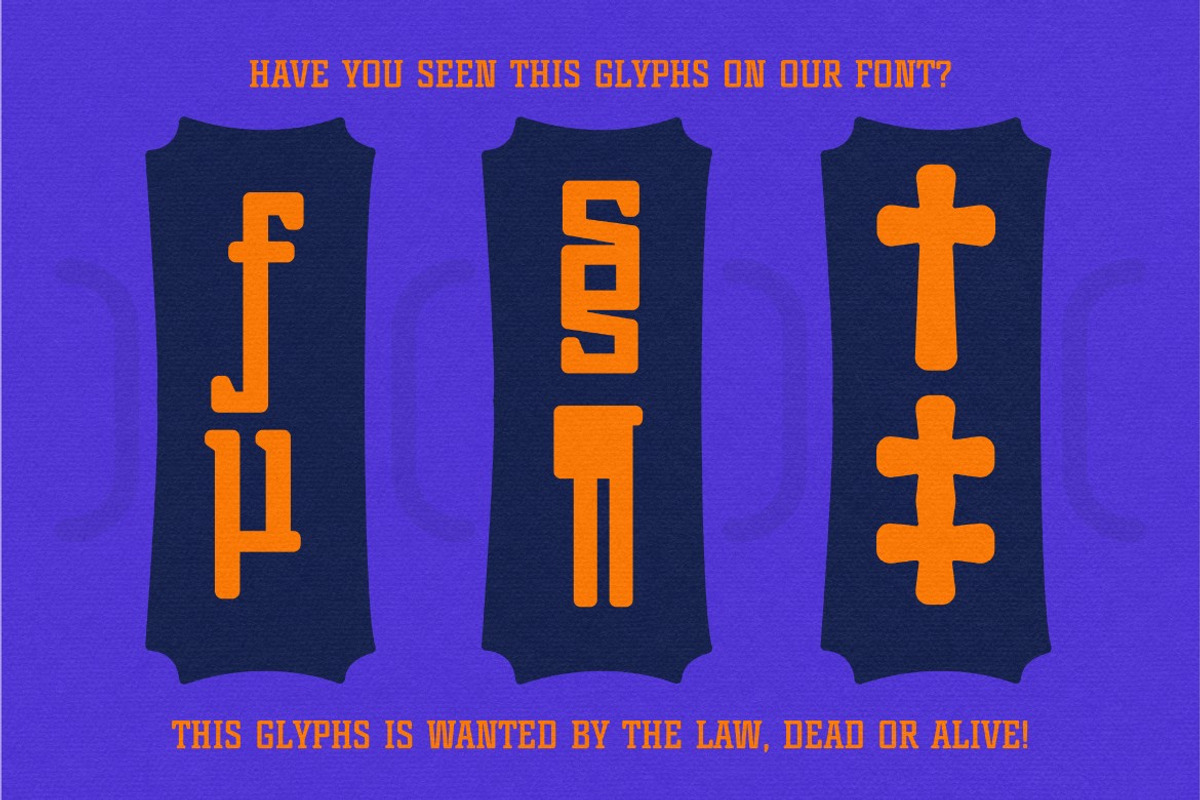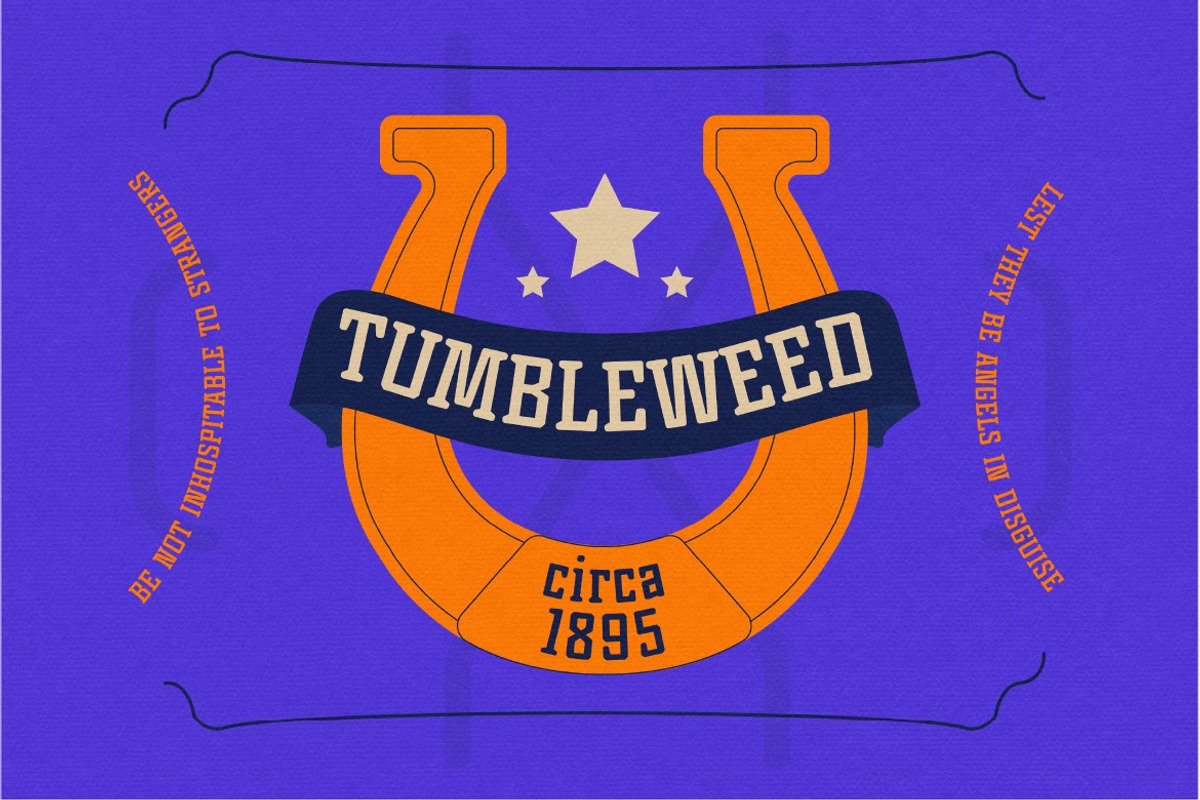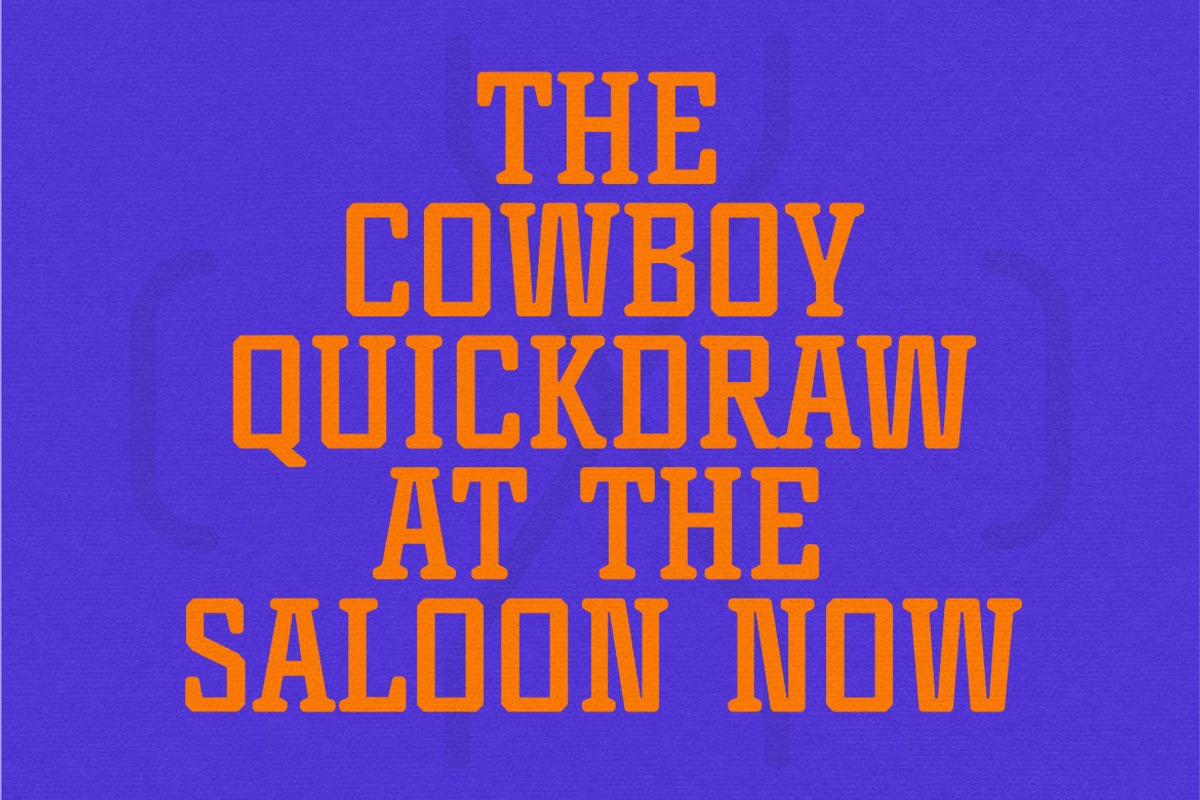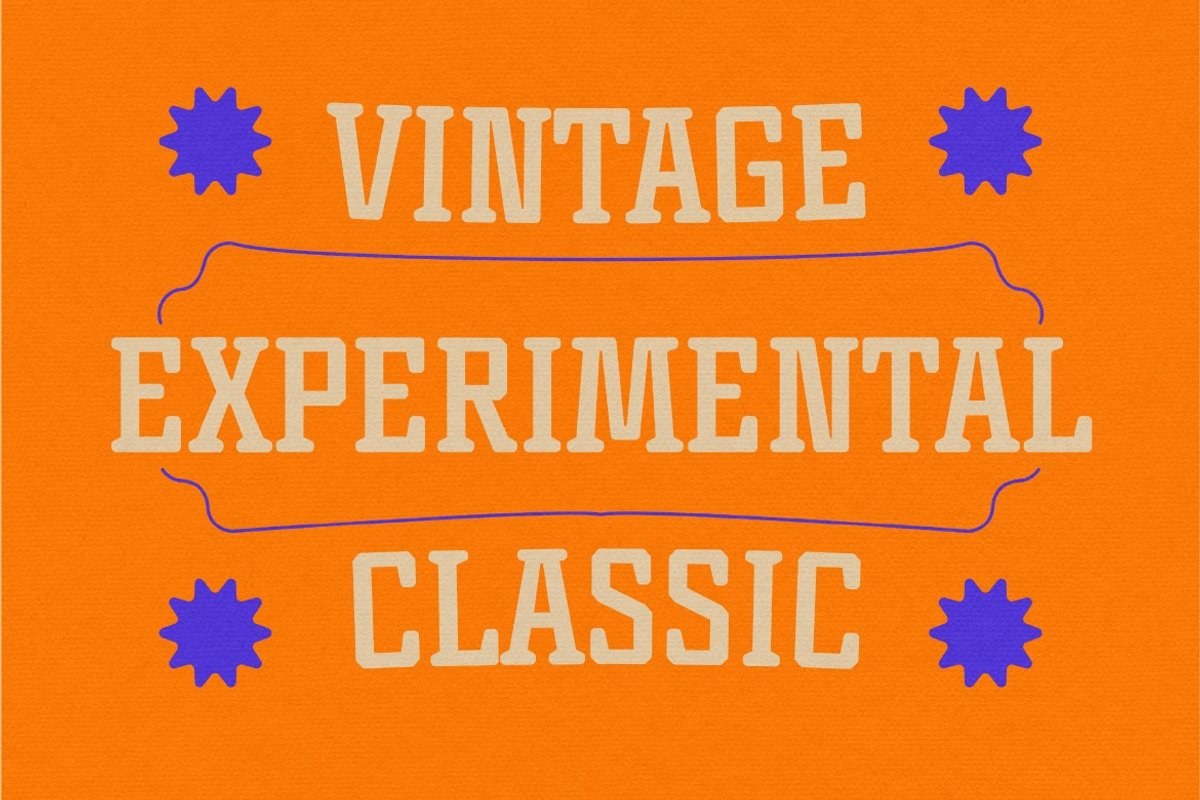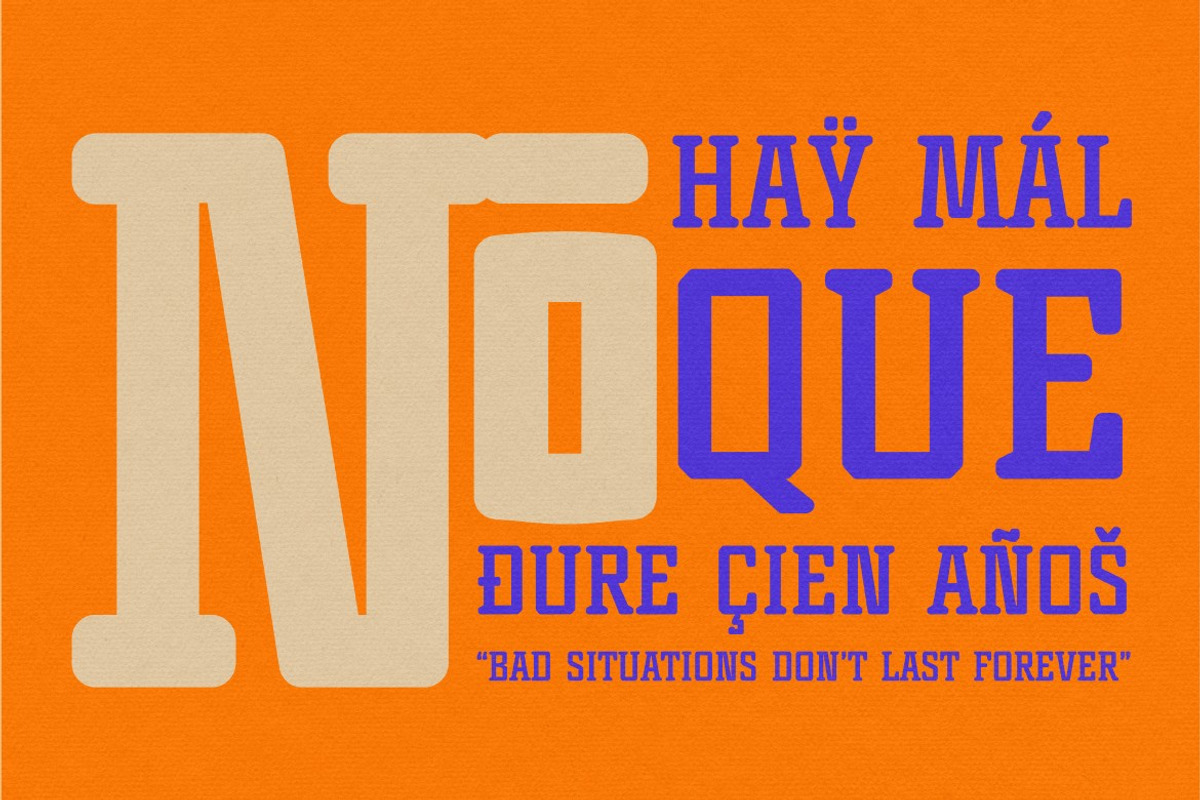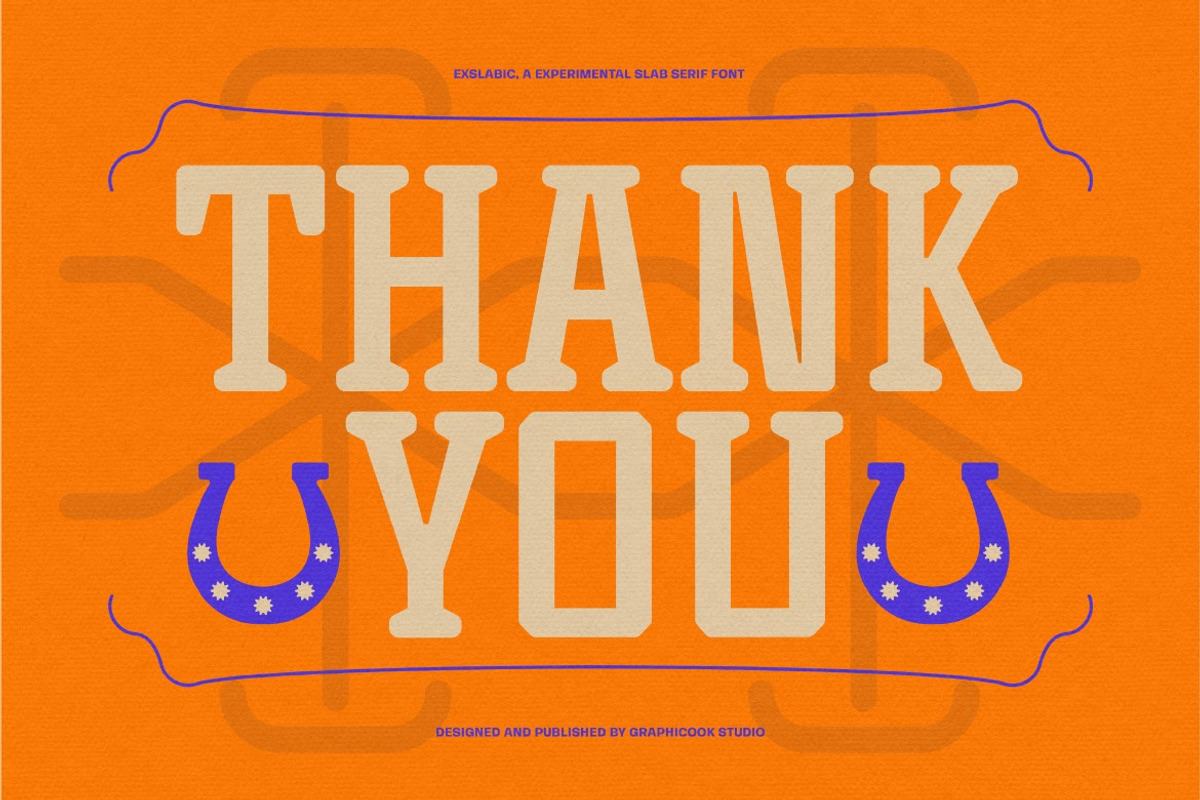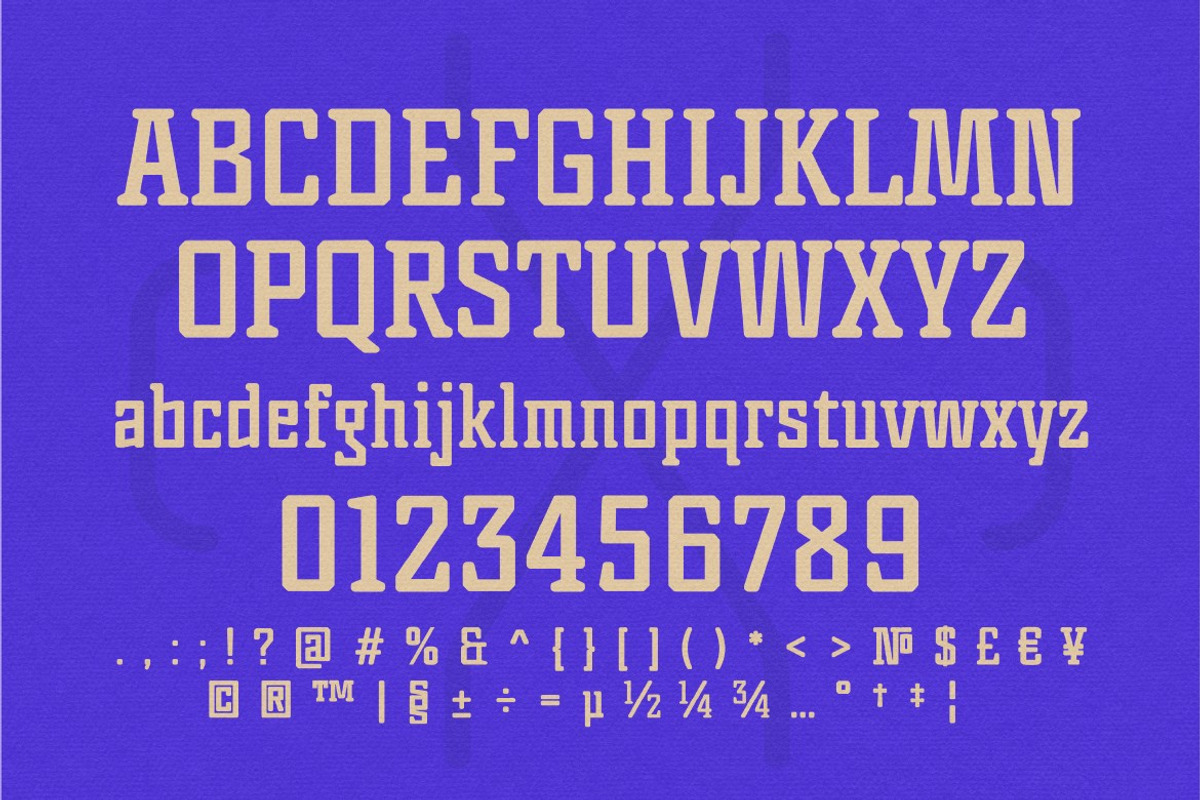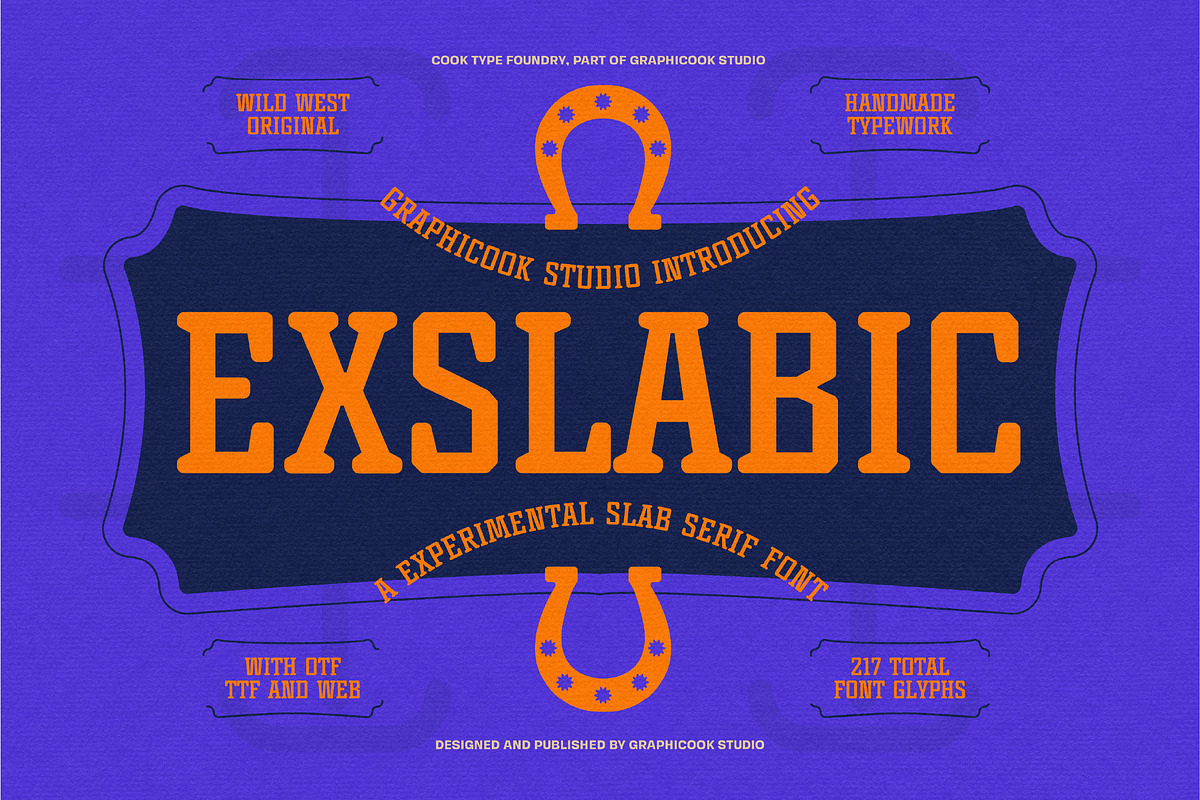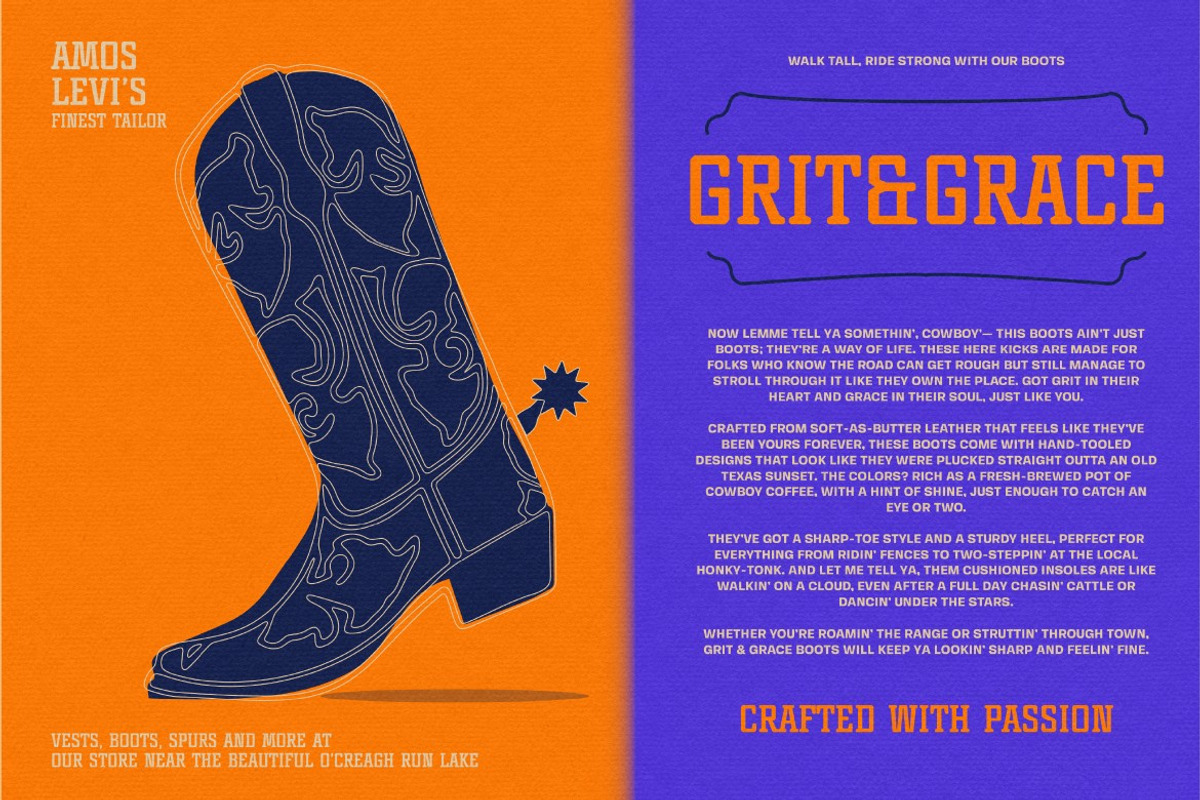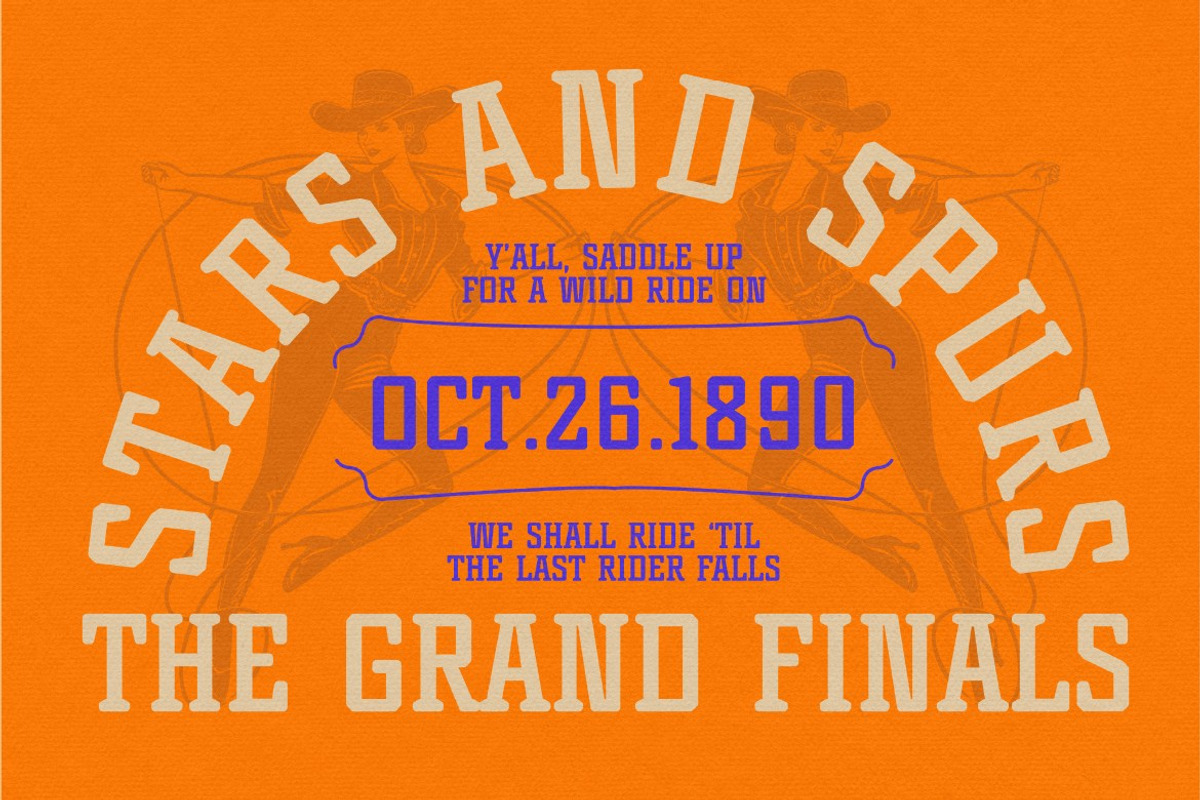
Exslabic
Exslabic is a slab serif font with a strong, masculine character, presented in a vintage and retro style. It’s perfect for logos, western or retro-themed posters, packaging, and more.
Exslabic is perfect for headlines, logotypes, magazines, packaging, quotes, movies, games, cover albums, book covers, and flyers, it's a perfect solution for creating eye-catching designs that stand out in any context.